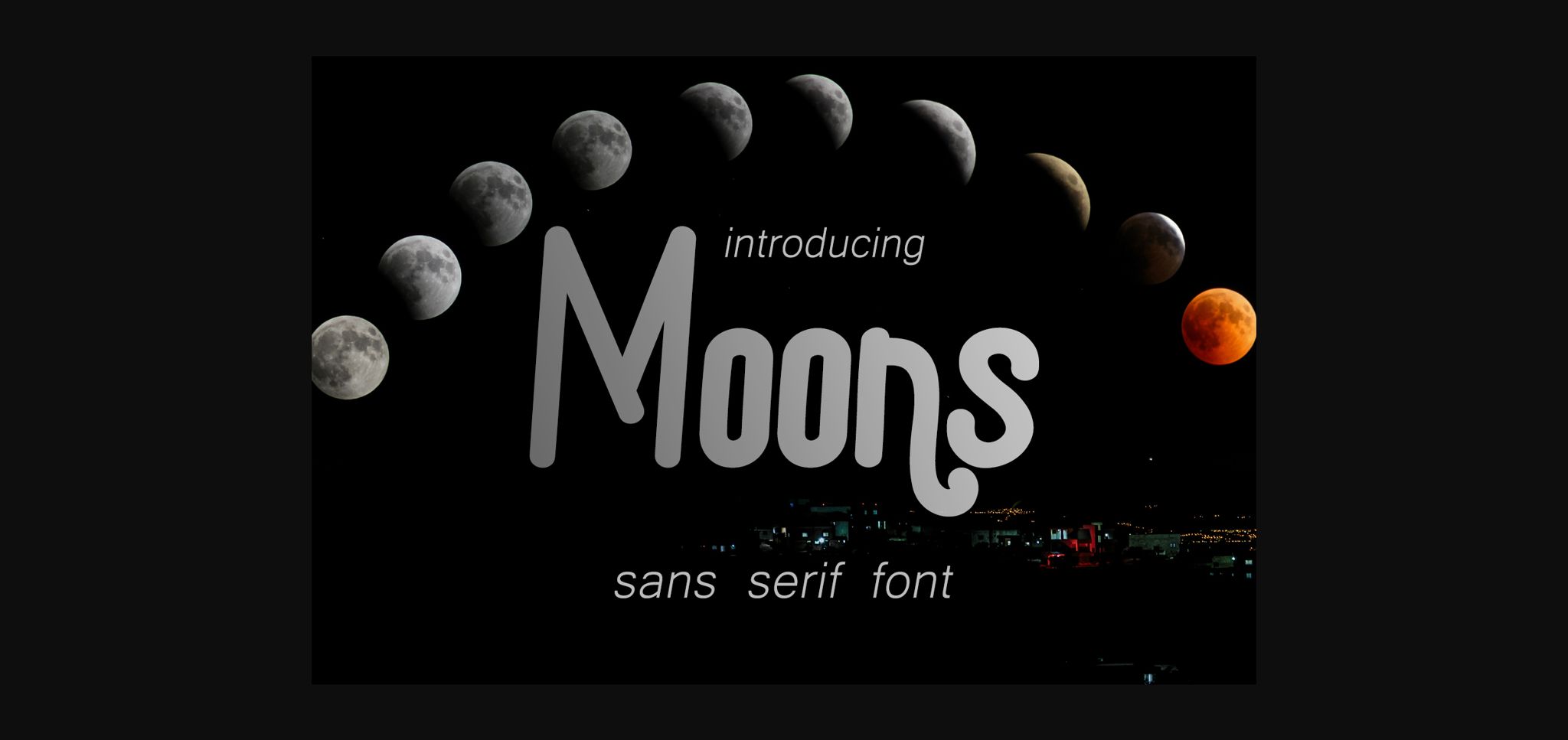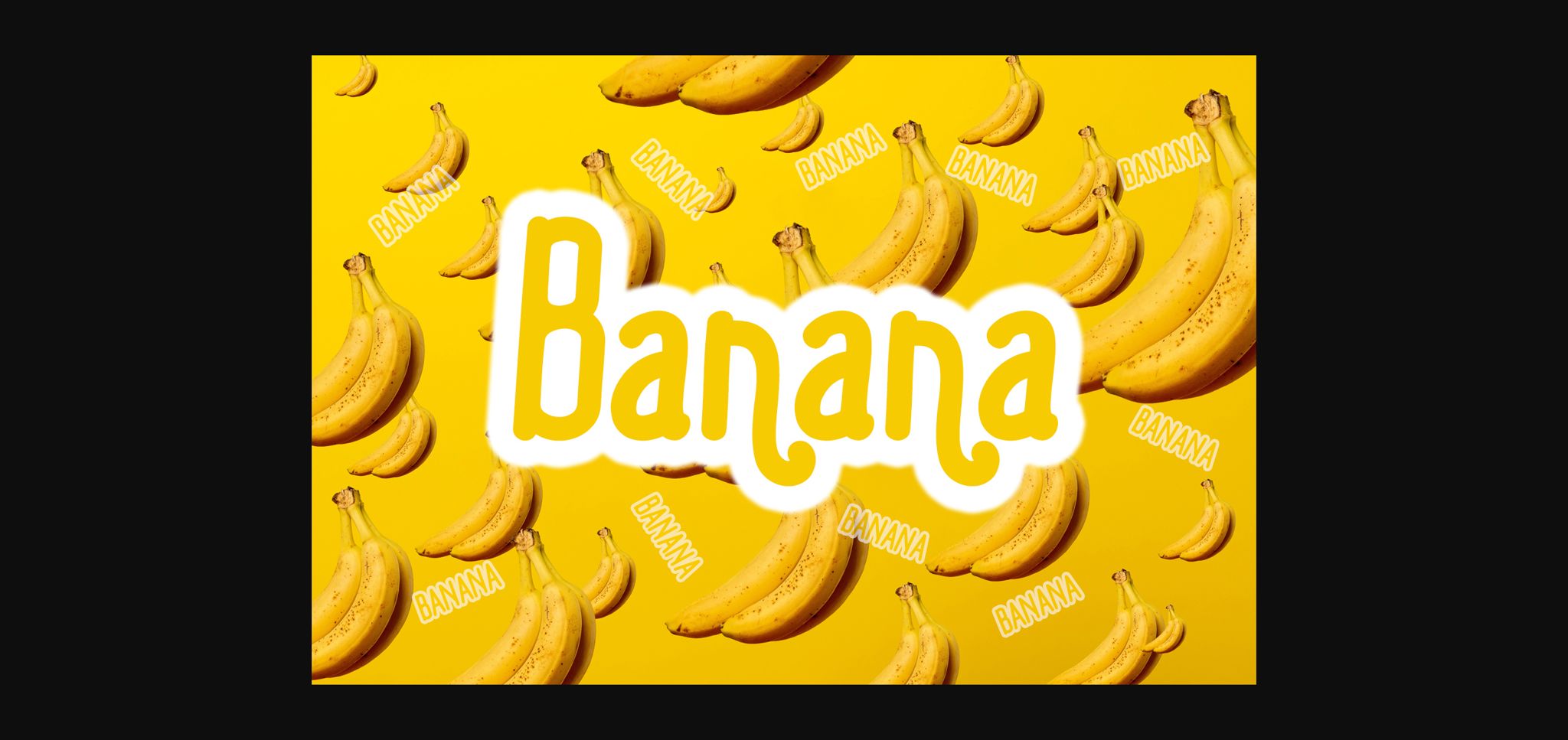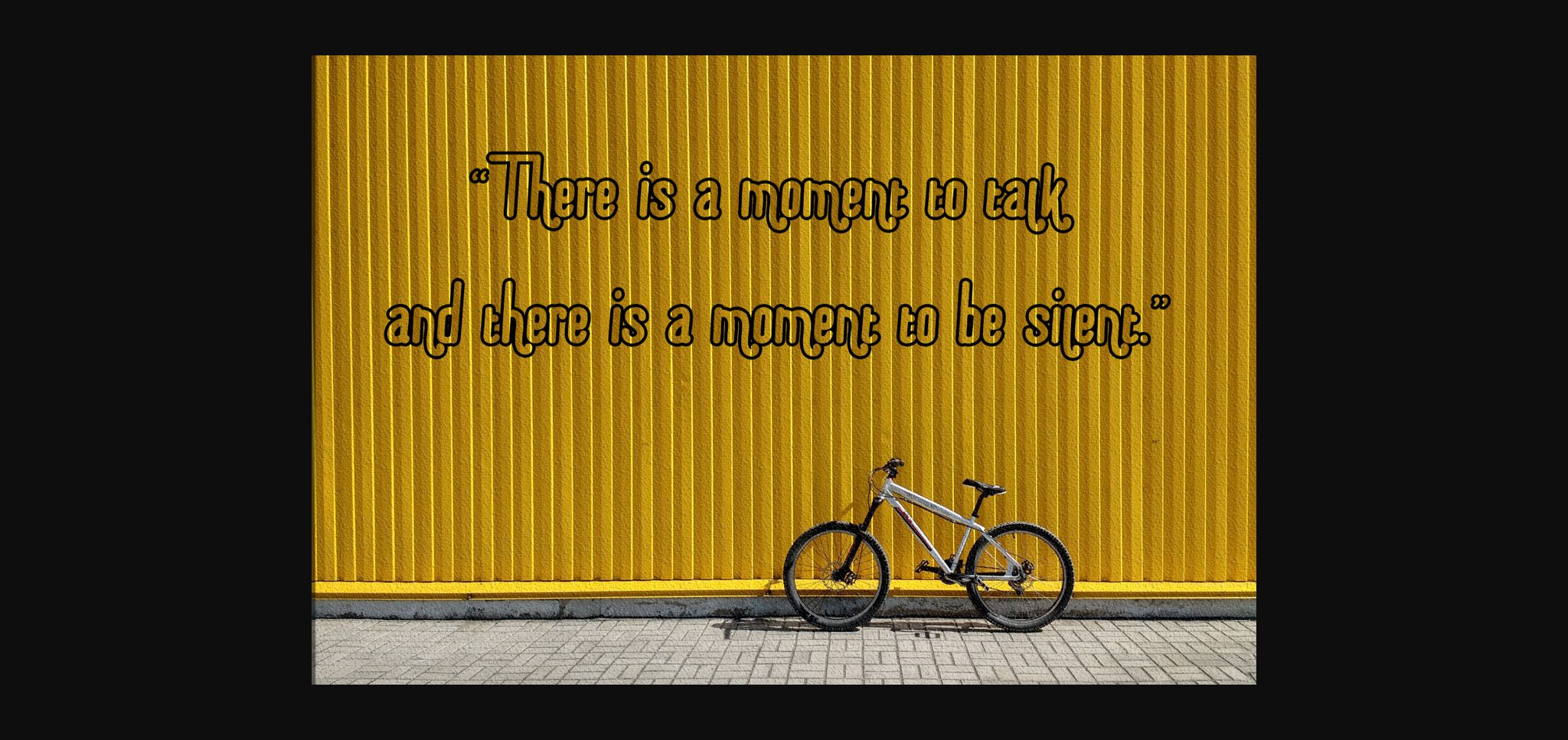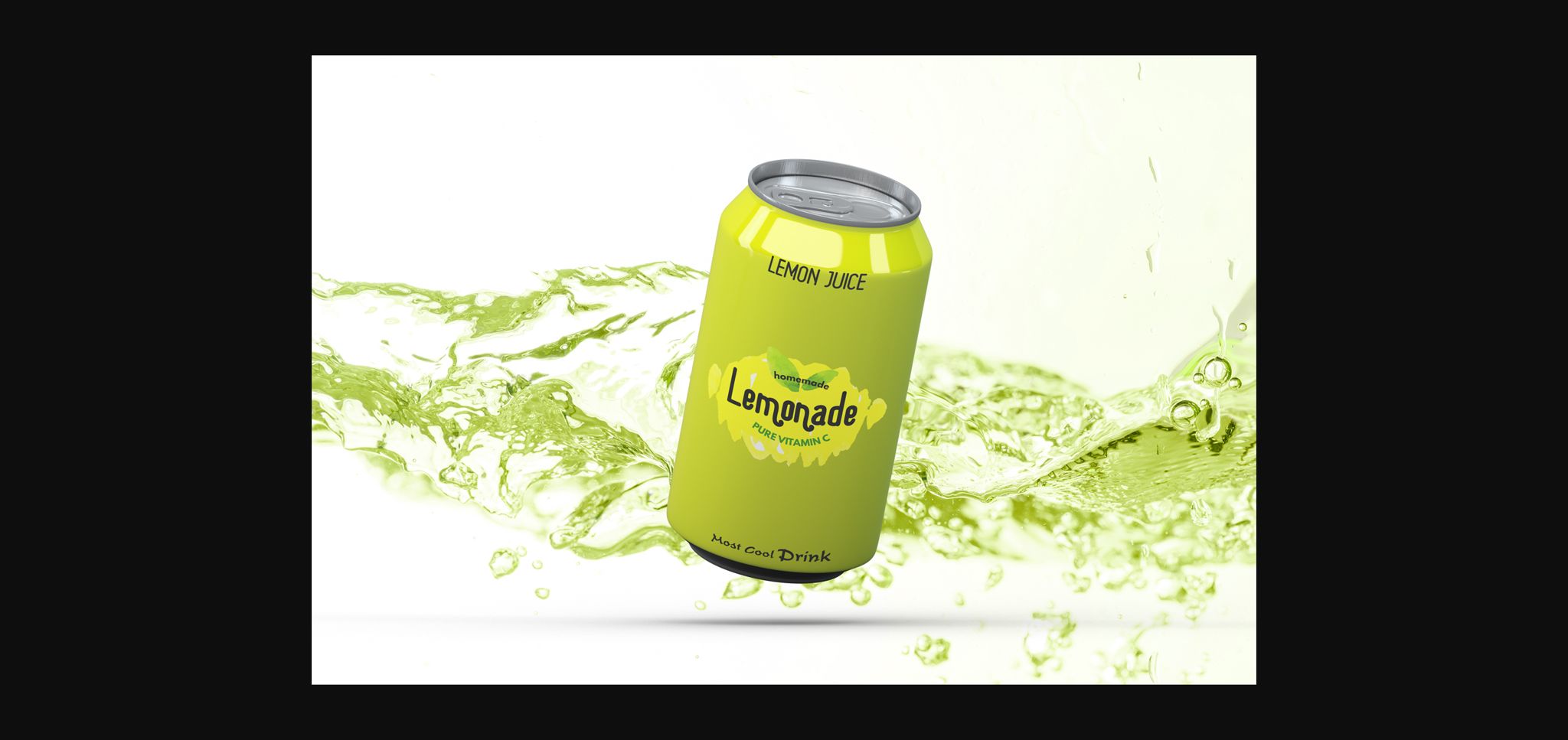
About Moons Font
Moons is a beautiful san serif font. It has a classy, elegant, and modern look which can be used for logos, branding, invitations, stationery, wedding designs, social media posts, and every other design.